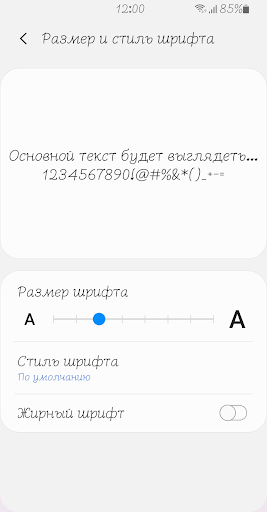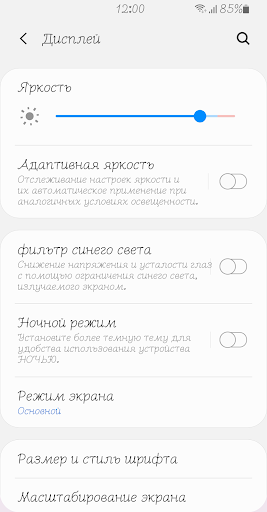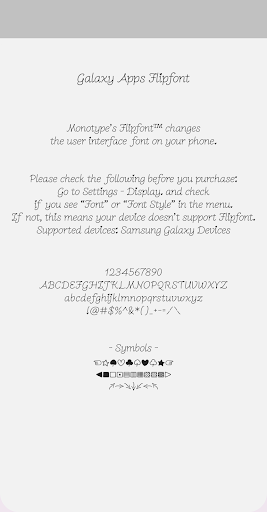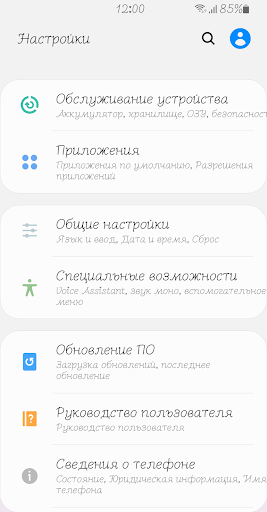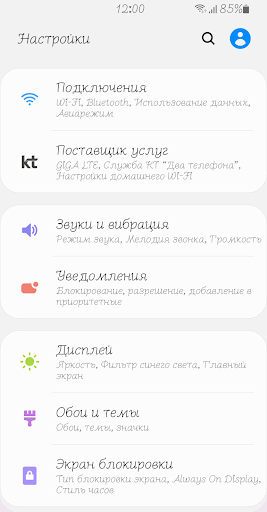
Nm PinkBreeze
Nm PinkBreeze is a lovely and cute font and has good readability. Customize your phone with PinkBreeze. Please try this font and leave your feedback.